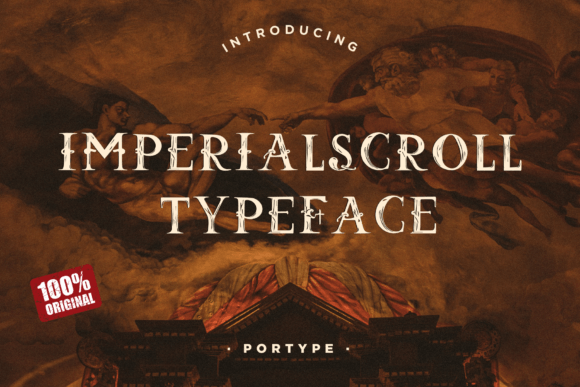
Unveiling the Majestic Imperialscroll Font
Have you ever found yourself browsing through a vintage bookstore, surrounded by dusty tomes and forgotten classics, when suddenly, a title catches your eye – a majestic, elegant script that transports you to a bygone era of grandeur and sophistication? For designers, that’s exactly the kind of creative spark that can ignite a project, and the Imperialscroll Font is here to fan those flames.
This regal typeface is designed to evoke the opulence and refinement of a royal court, with intricate detailing and classical forms that exude nobility and elegance. Whether you’re creating a movie title, poster, or any design project that demands a touch of majesty, the Imperialscroll Font is the perfect tool in your arsenal.
Key Features of Imperialscroll Font
- Unique Characteristics: This font features a unique blend of classic and modern elements, with intricate details and ornate flourishes that evoke a sense of elegance and sophistication.
Imperialscroll Font Review
I recently had the chance to work with the Imperialscroll font, and I must say it’s an interesting addition to any design project. ✨ One thing that stands out is its unique, elegant aesthetic. The font’s intricate details and ornate flair make it perfect for projects that need a touch of luxury or sophistication.
However, there are some limitations to keep in mind. ⚠️ The font may be too ornate for some projects, and its complexity can make it difficult to read at smaller font sizes. Additionally, some characters may not render correctly across all devices, which can be a concern for designers who need a high level of consistency.
Here are some specific things to consider when working with Imperialscroll:
- Unique aesthetic**: Imperialscroll is perfect for projects that need a touch of luxury or sophistication.
- Complexity**: The font’s intricate details can make it difficult to read at smaller font sizes.
- Device compatibility**: Some characters may not render correctly across all devices.
Overall, I think Imperialscroll is a solid choice for designers who need a unique, high-end font. However, it’s essential to weigh its limitations and consider whether it’s the right fit for your project.
Getting the Most Out of Imperialscroll
For optimal results, use Imperialscroll for titles, headings, and other emphasis text.
Pair it with a clear and legible font for body text to create a visually appealing contrast.
Imperialscroll is ideal for:
1. Luxury branding and marketing materials.
2. Formal invitations and event materials.
3. Historical or vintage-themed designs.